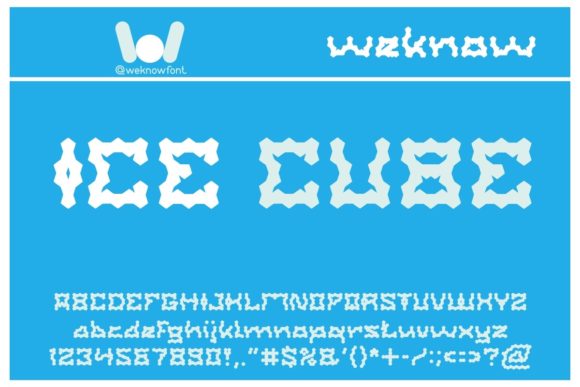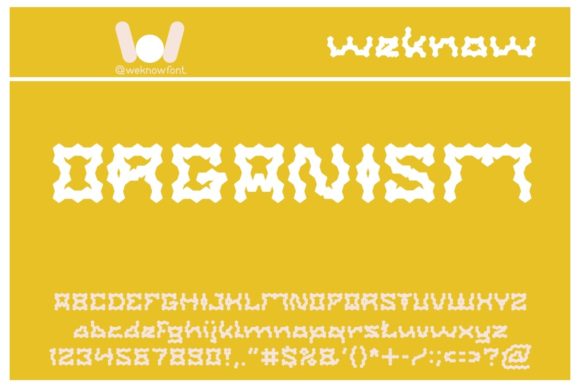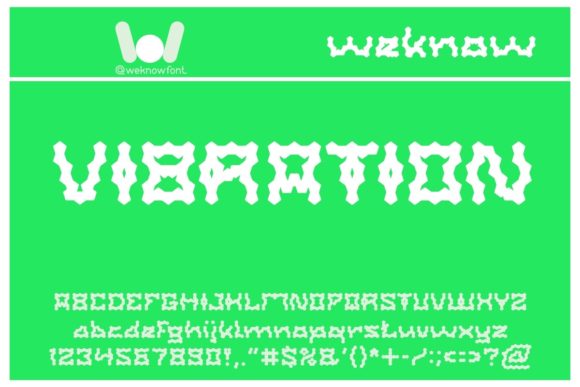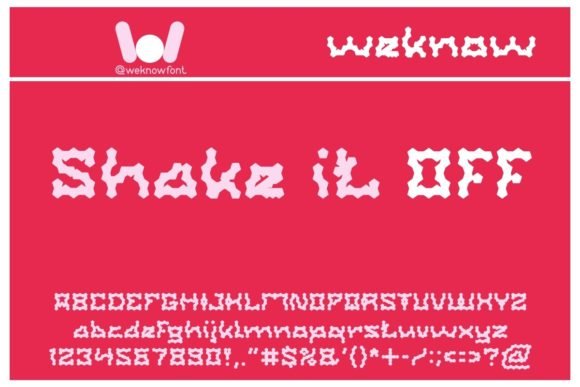
Introduction to Shake It off Font
Shake It Off is a fancy, wavy and incredibly cool various themes display font.
It is suitable for logos, brand identity, apparel industry, poster, music, movie, game, magazine, book, comic, cartoon, YouTube, Instagram, website, or any of your creative design projects .